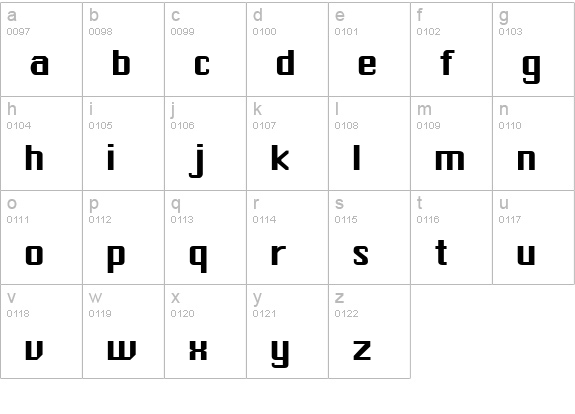
QTChicagoland Regular Font Details
QTChicagoland Regular is the standard, neutral variant in the QTChicagoland typeface family \xE2\x80\x94 well suited to general body text, paragraphs, and standard typographic work.
QTChicagoland Regular font is a beautifully designed typeface that effortlessly captures the essence of the bustling and vibrant city of Chicago. This font exudes a sense of urban sophistication and modernity, making it the perfect choice for any design project that aims to convey a contemporary and stylish aesthetic. With its clean lines and well-balanced proportions, QTChicagoland Regular font strikes the perfect balance between legibility and visual appeal. Its versatile nature allows it to seamlessly adapt to various design contexts, whether it be for print materials, digital platforms, or branding purposes. One of the most notable features of QTChicagoland Regular font is its remarkable versatility and adaptability. It effortlessly conveys a sense of professionalism, making it ideal for corporate and business-related projects. At the same time, it also possesses a touch of warmth and friendliness that makes it equally suitable for more casual and creative endeavors. What sets QTChicagoland Regular font apart is the fact that it is freely available to download at FontsMarket.com. This means that you can easily access this exceptional font without any cost or hassle. Whether you are a professional designer or a novice enthusiast, you can now elevate your projects with this stunning typeface without breaking the bank. In conclusion, QTChicagoland Regular font is a must-have for anyone looking to add a touch of elegance and sophistication to their design work. With its clean and modern aesthetic, this font is sure to make a lasting impression. So why wait? Head over to FontsMarket.com and download QTChicagoland Regular font today, and let your creativity soar to new heights.